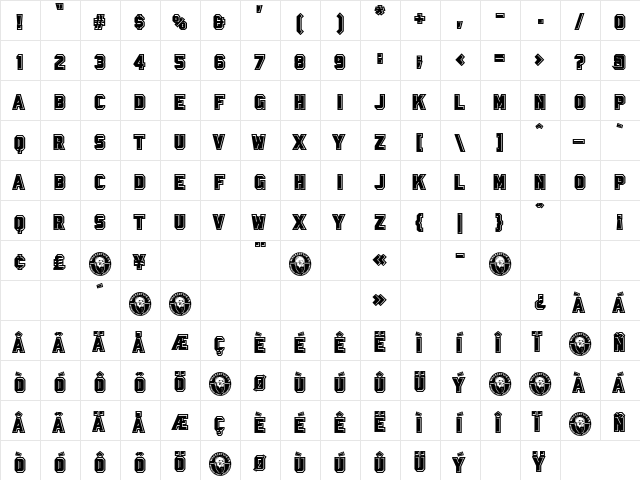
Spanish College Regular
Design Context for Spanish College Typeface
Spanish College brings high-energy athletic personality to the page — its confident, muscular forms are built for impact.
Built for sports team identities, athletic apparel, event posters, and high-energy promotional material.
Font Pairing: Use alongside a condensed or geometric sans for supporting copy — keep the pairing bold, functional, and free of ornament.
Pro Tip: Spanish College thrives on contrast — try it large, bold, and tight against a clean background for maximum visual impact.